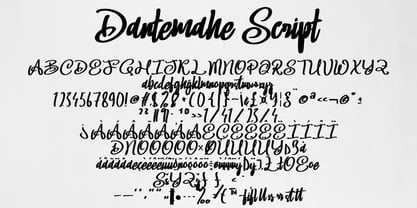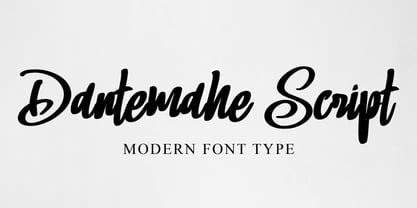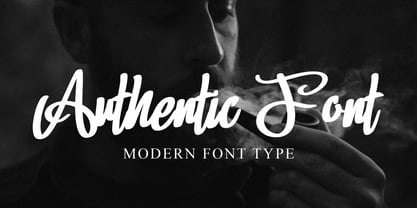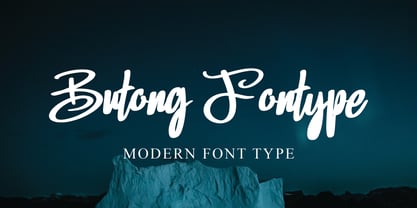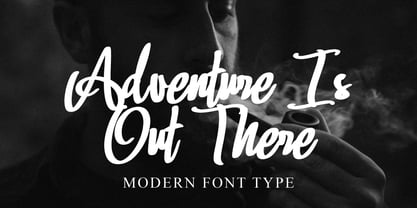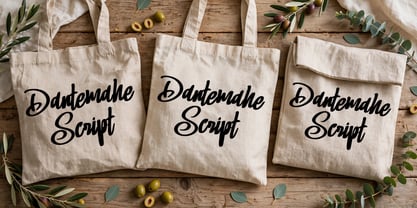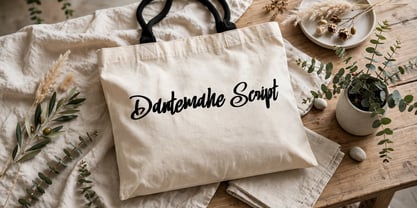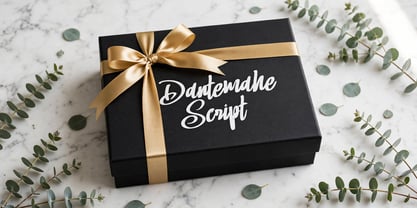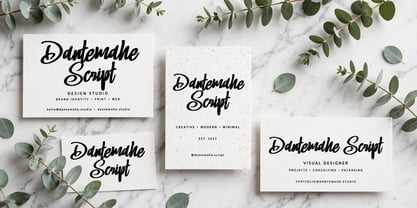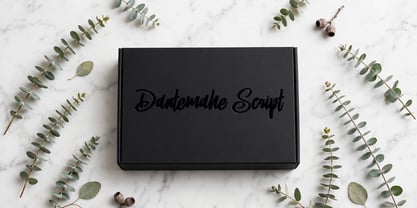
Dantemahe Script
by Ayska
The Dantemahe Script Font Family was designed by Dhoni Trihatmoko and published by Ayska. Dantemahe Script contains 1 styles. More about this family
Dive into the captivating realm of Dantemahe Script—a premium font which masterfully interweaves contemporary chic with effortless handwritten sophistication. Delicately hand-fashioned, Dantemahe Script emits an unmatched allure and polished charm, making it a priceless asset in your digital design journey. Witness its irresistible charisma elevate the attractiveness of your blog, instill an exclusive edge to your digital planner designs, sew a unique character into your invites, or faithfully communicate your heartfelt words in bespoke greeting cards. Experience the enduring elegance and innovative spirit of Dantemahe Script as it revolutionizes your cherished photo albums or personalized decor. With its potent ability to seamlessly morph ordinary digital displays into expressive, attention-grabbing wonders, Dantemahe Script's striking appeal remains unparalleled. Let Dantemahe Script anchor your creative pursuits, architecting an unforgettable panoply of stunning artistry. Succumb to the creative spell of Dantemahe Script, and witness your artistic visions metamorphose into distinctive, glittering realities.
Designers: Dhoni Trihatmoko
Foundry: Ayska